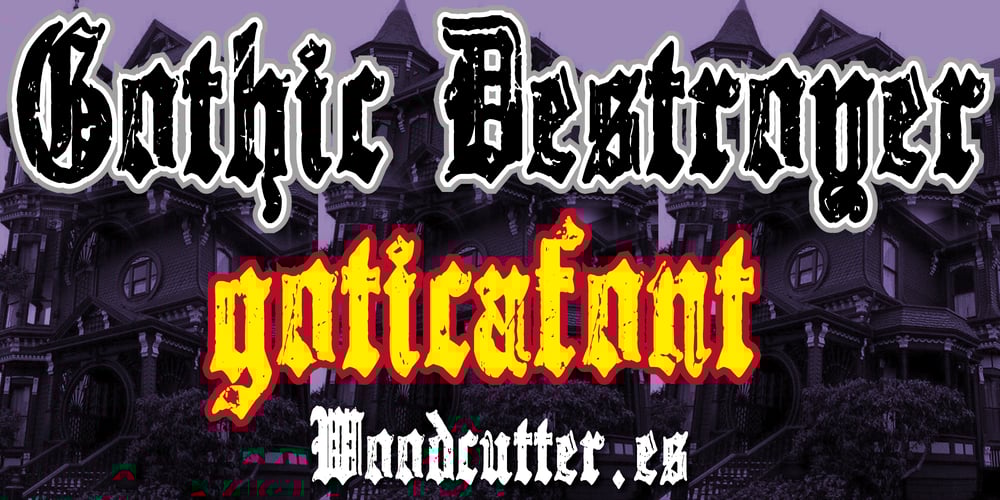
Gothic Destroyer
Gothic Destroyer font
Gothic Destroyer Font Family was designed by Jordi Manero and published by Woodcutter. Gothic Destroyer contains 1 styles and family package options. “Gothic Destroyer” is a font that combines the classic medieval Gothic style with a worn and dirty appearance. Its letters, both uppercase and lowercase, feature irregular outlines and visible wear, giving them an aged and decayed look. This typeface is perfect for projects that aim to evoke a sense of mystery, history, and darkness, making it ideal for book covers, posters, and any design requiring a touch of sinister and medieval elegance.